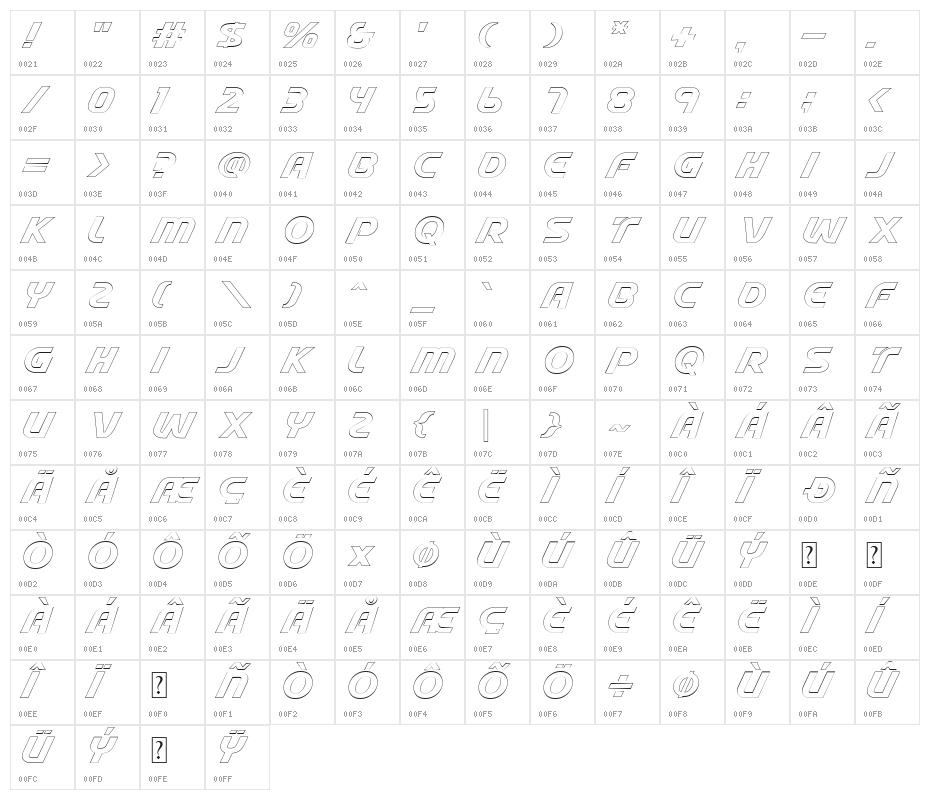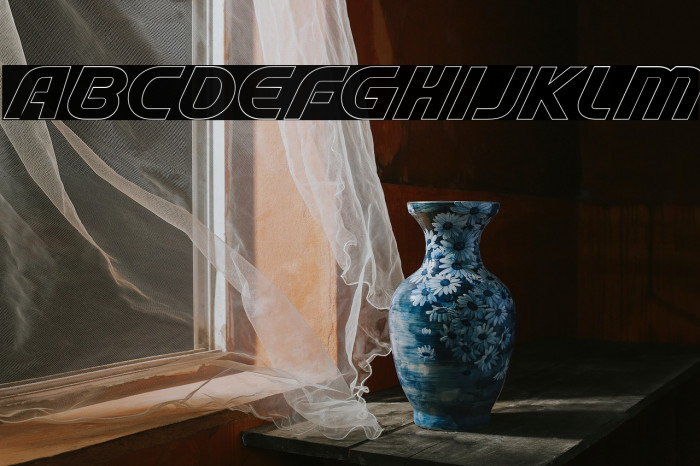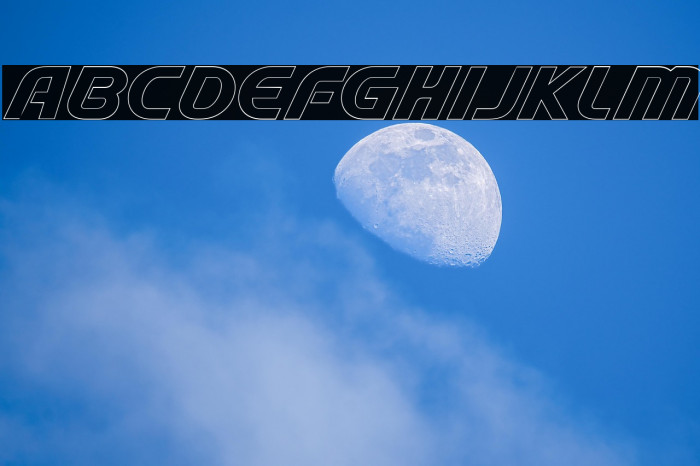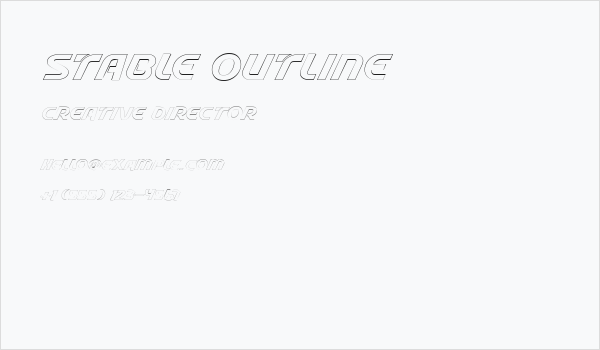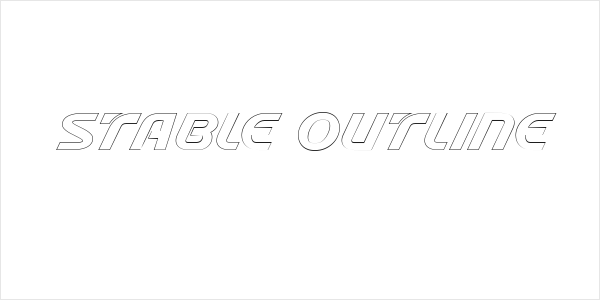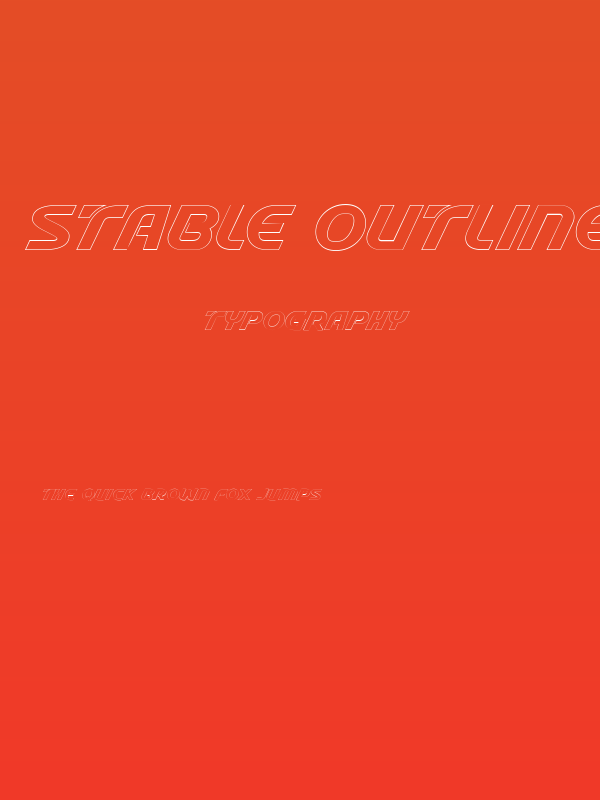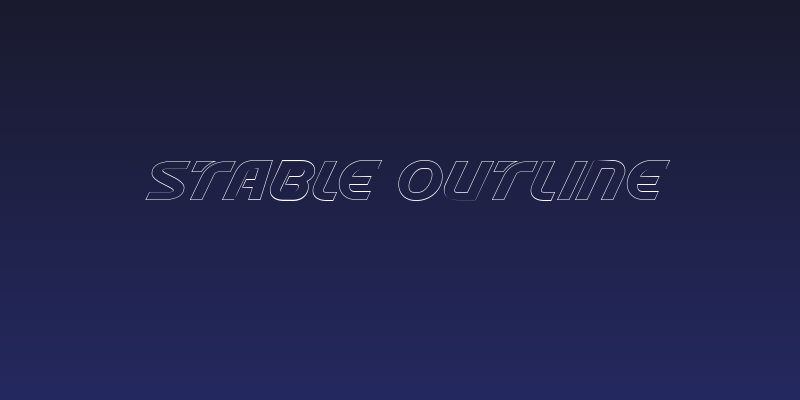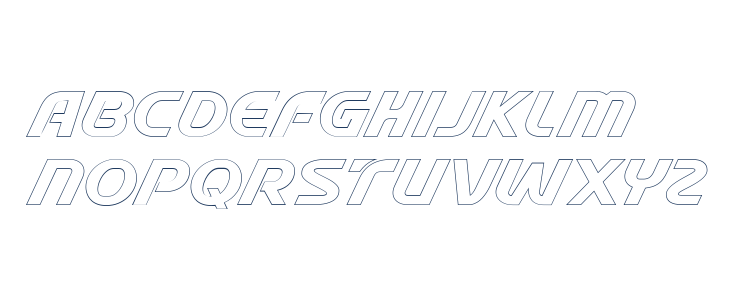
Stable Outline Font
Stable Outline Description
This font features a modern, outlined design with a futuristic flair. Each character is crafted with a sleek, angular style that gives it a dynamic and energetic appearance. The uppercase letters are bold and commanding, while the lowercase letters maintain the same geometric precision. Numbers and special characters are designed to match the overall aesthetic, making them perfect for attention-grabbing headlines or logos. The outline effect adds a unique dimension, allowing for creative layering and color play in design projects.
| Proposed Projects | Ideal for futuristic branding, tech-related projects, sports team logos, and modern advertising campaigns. |